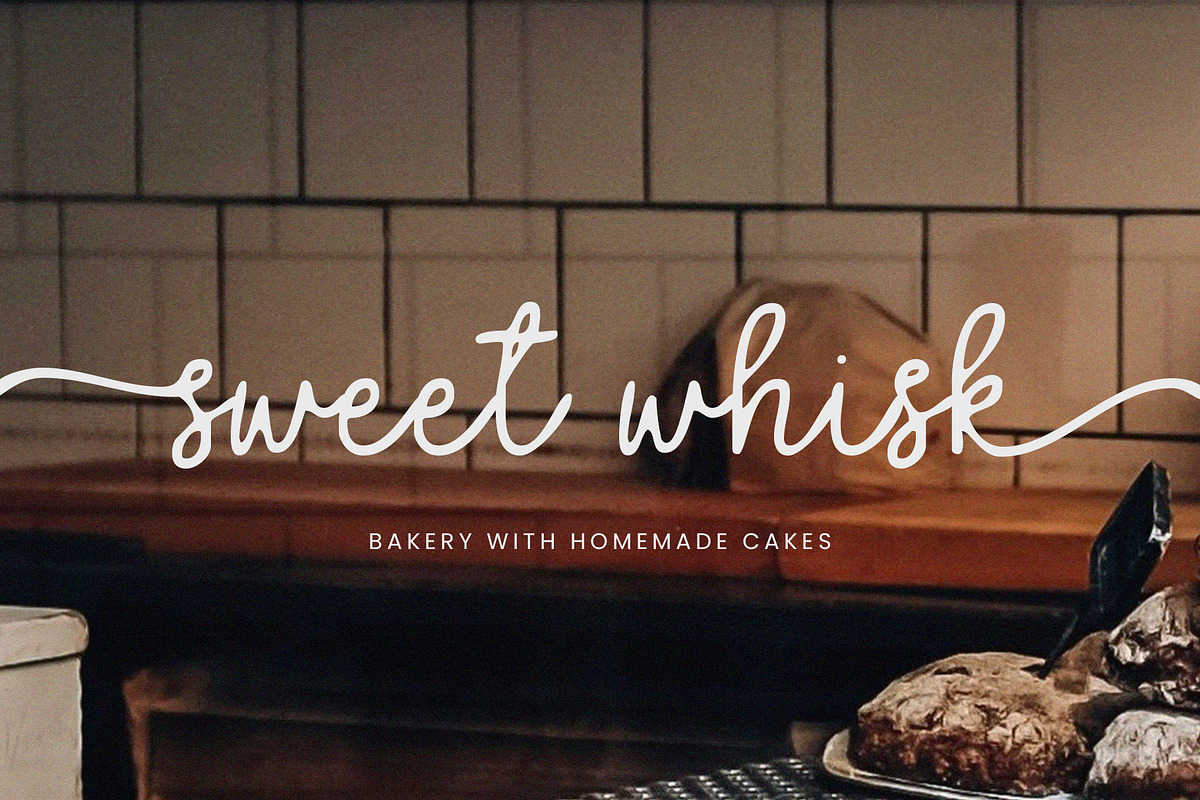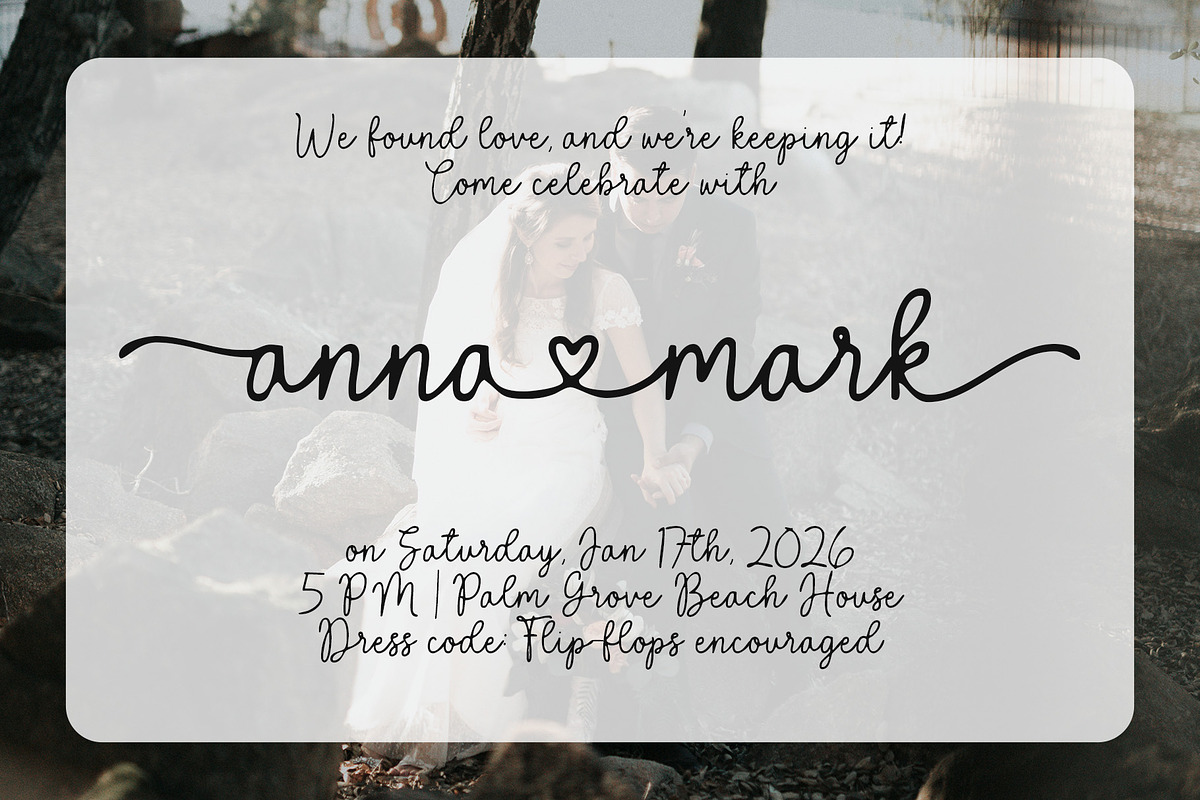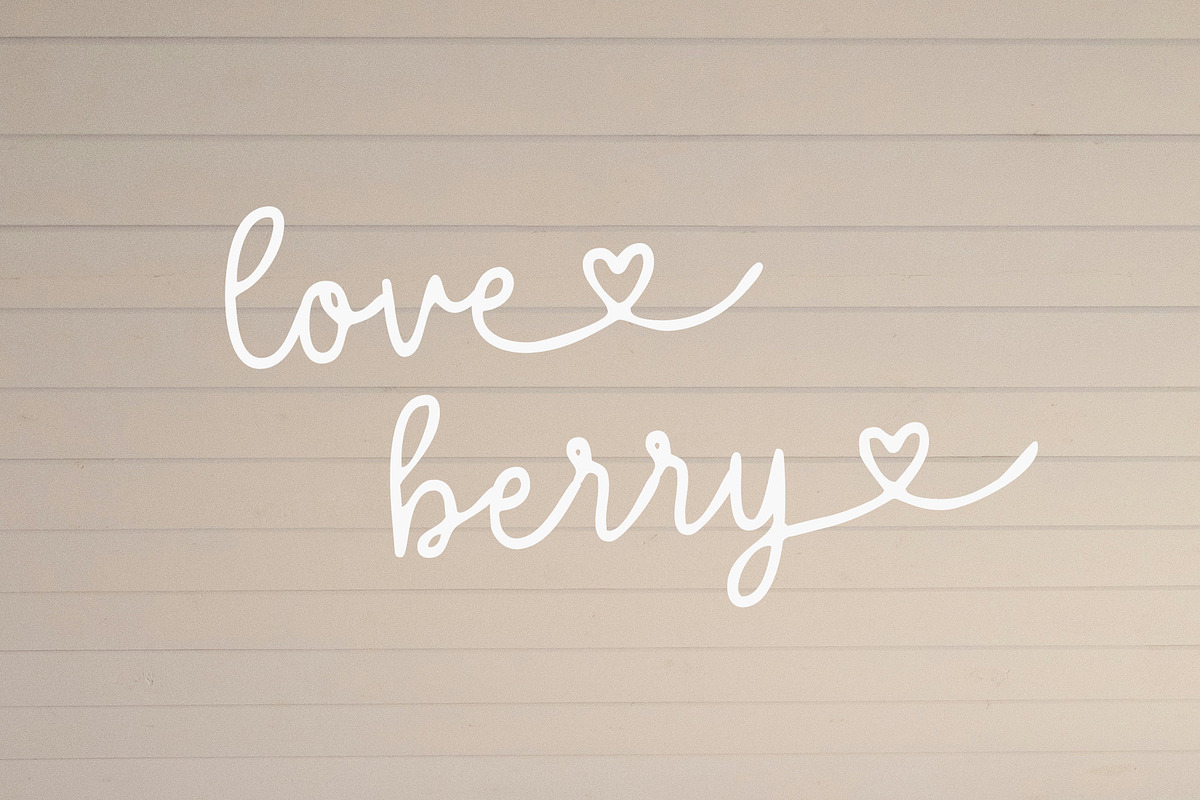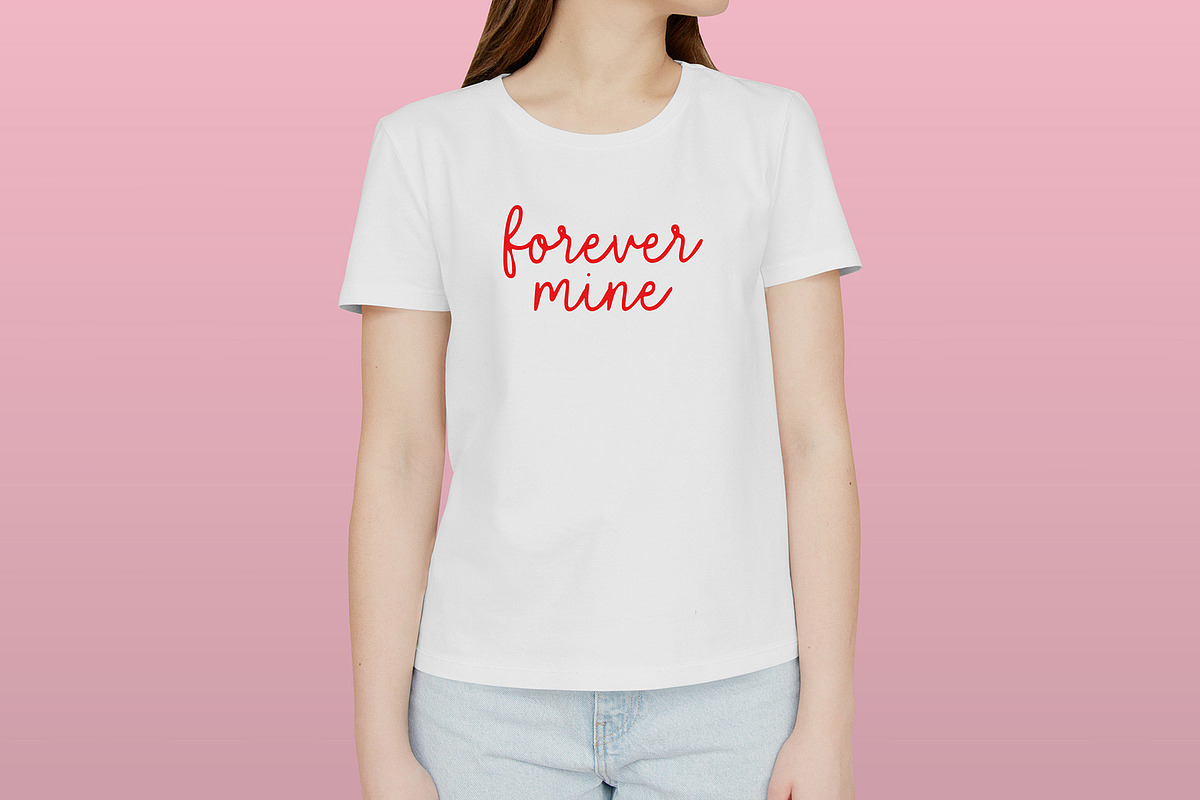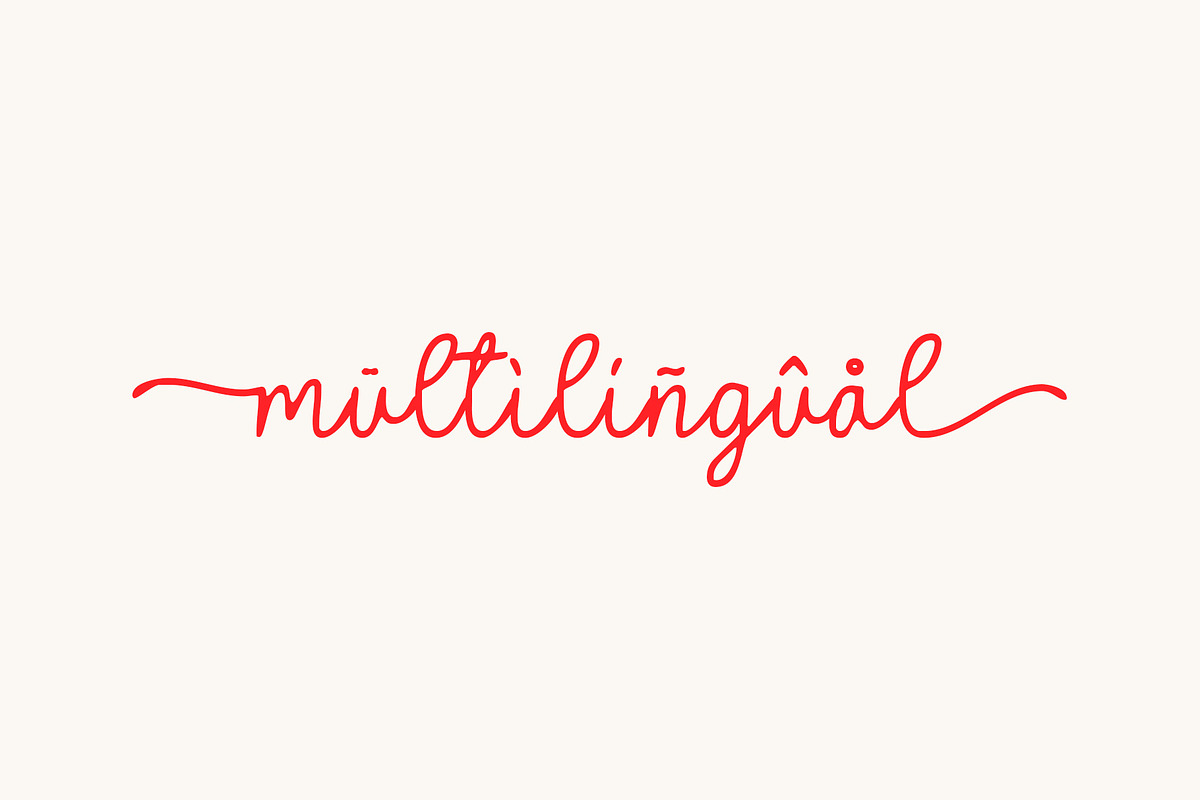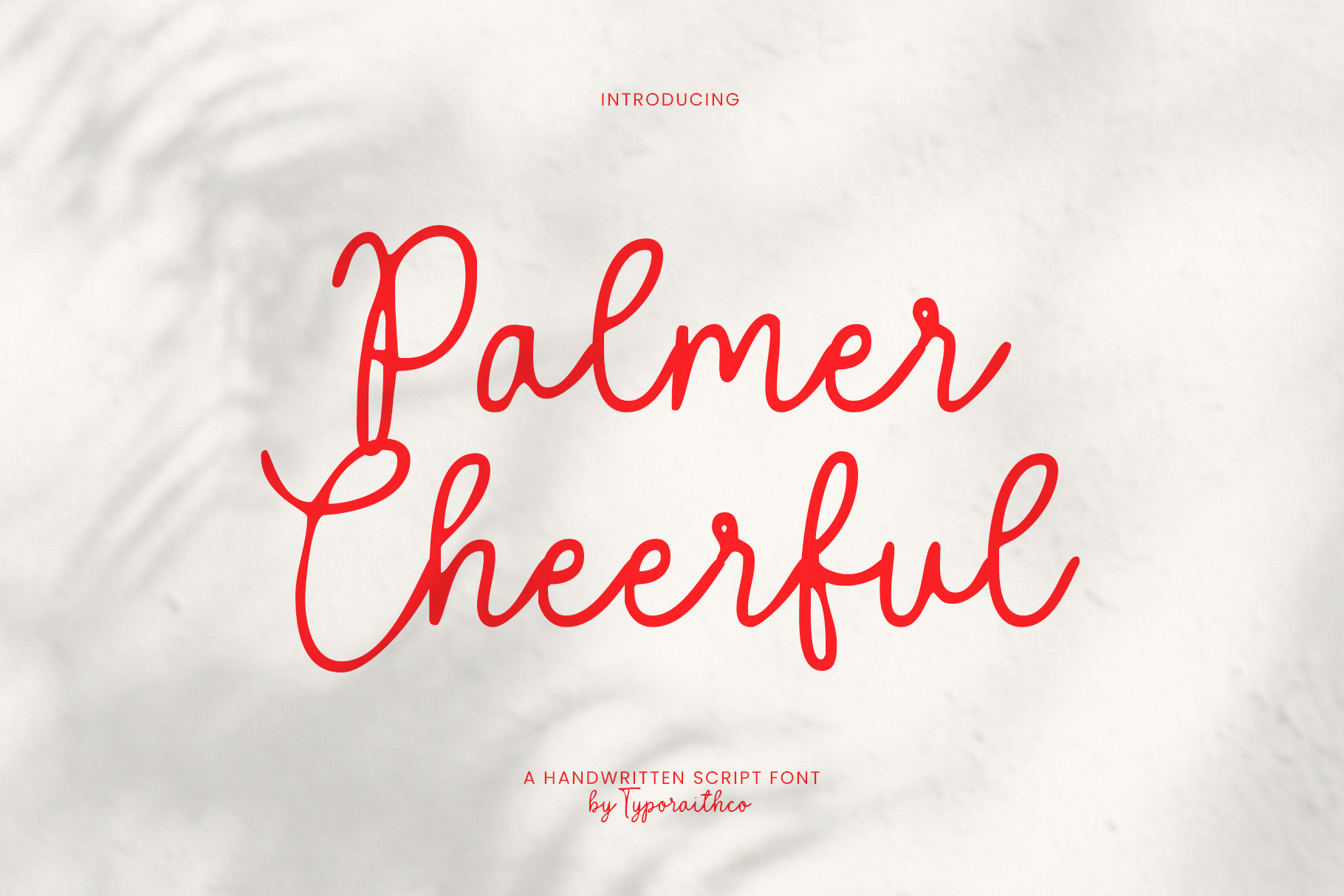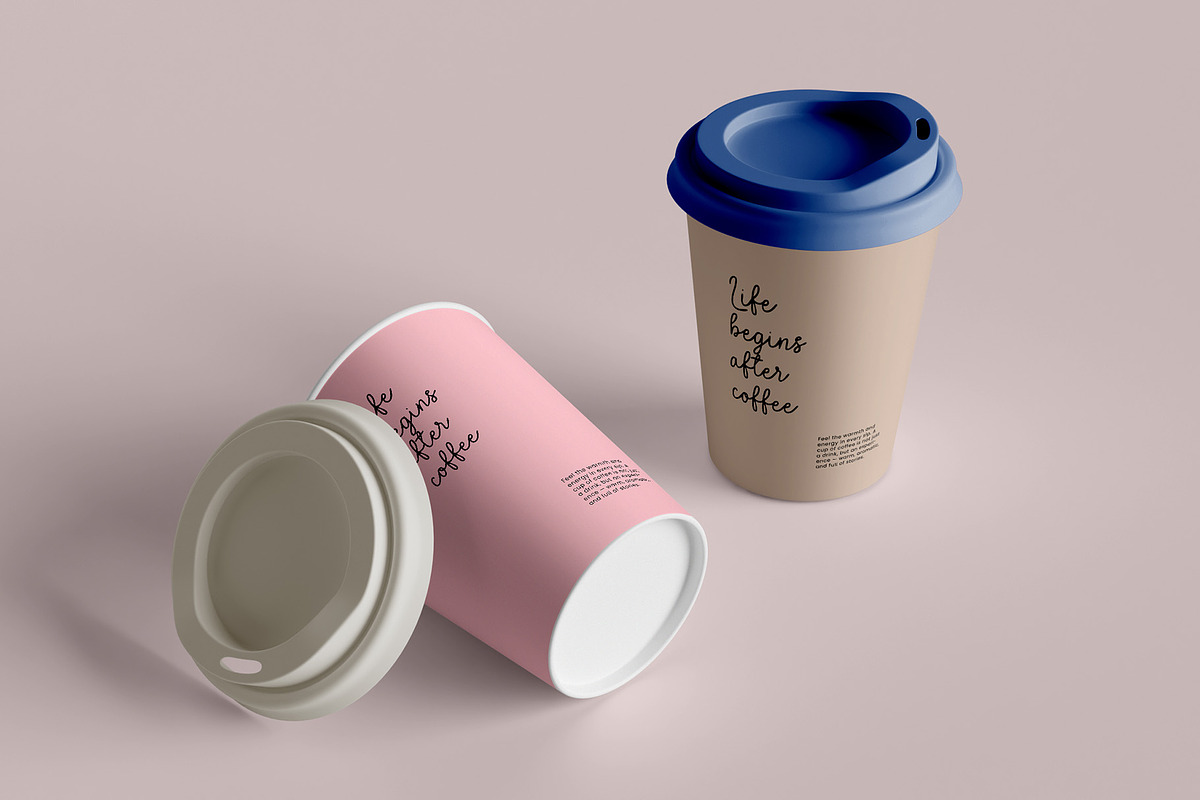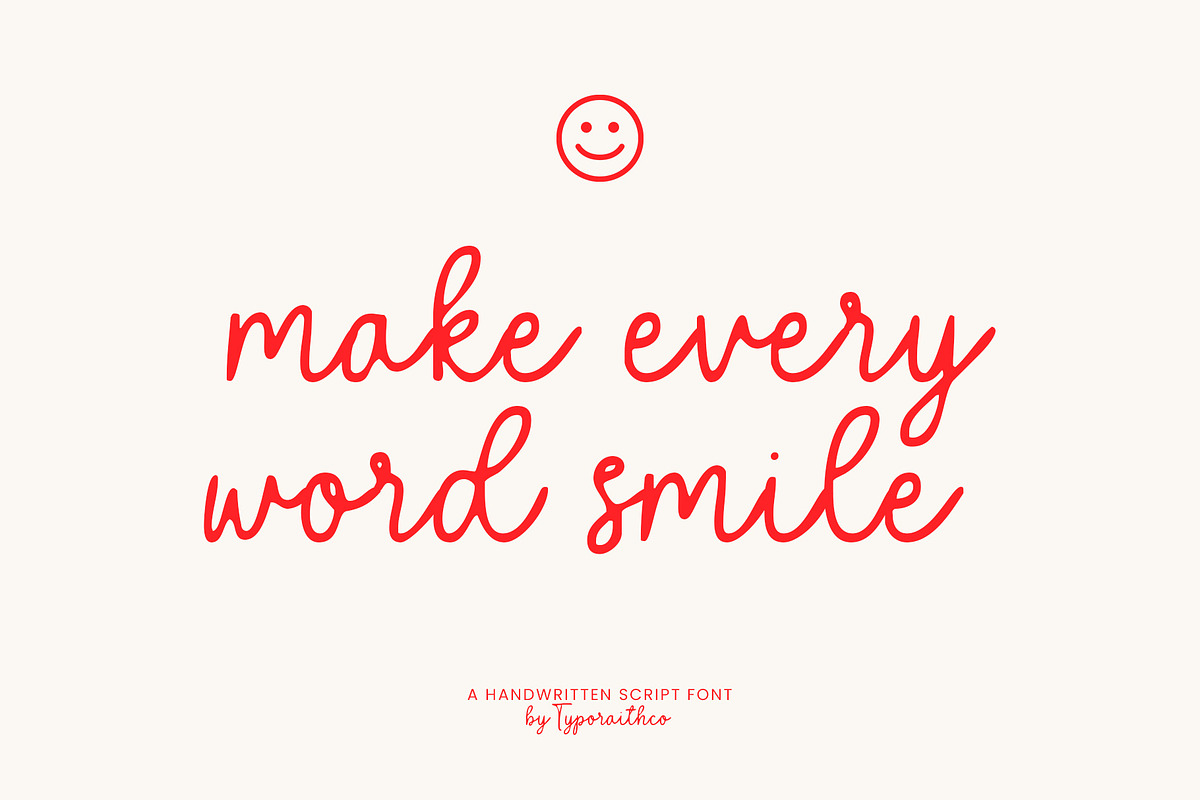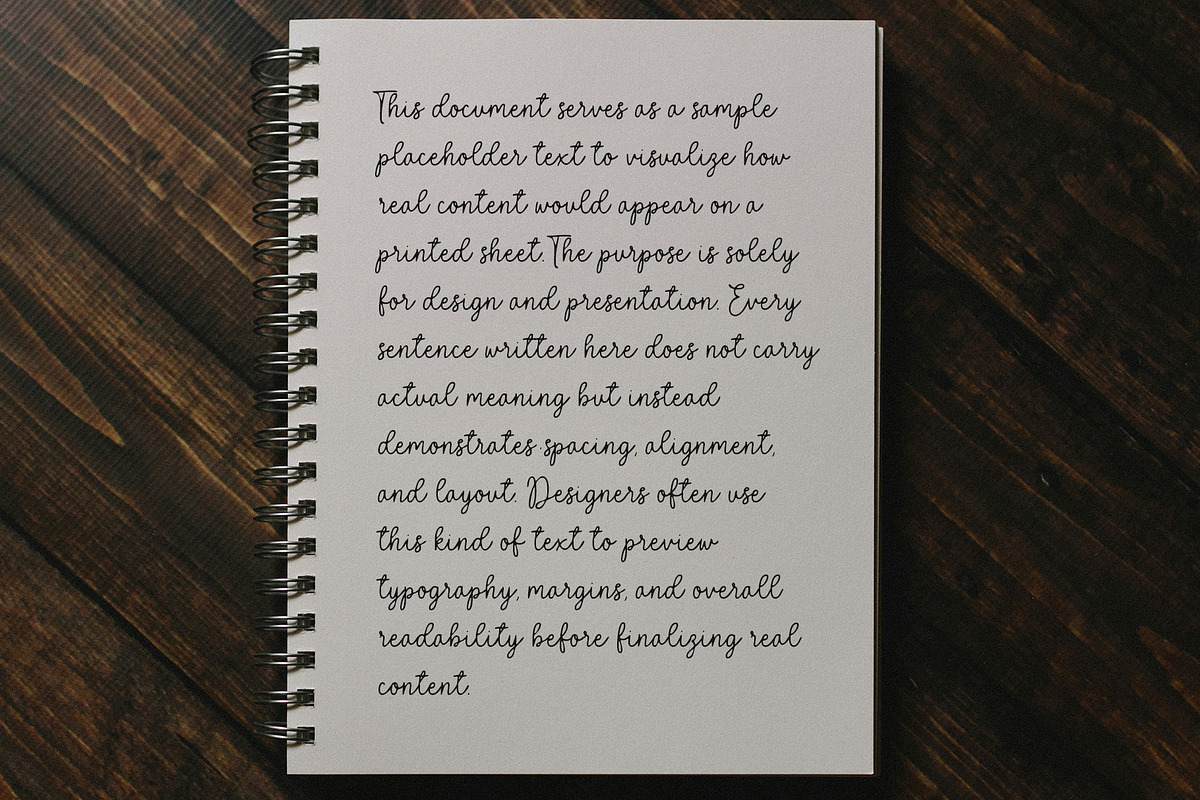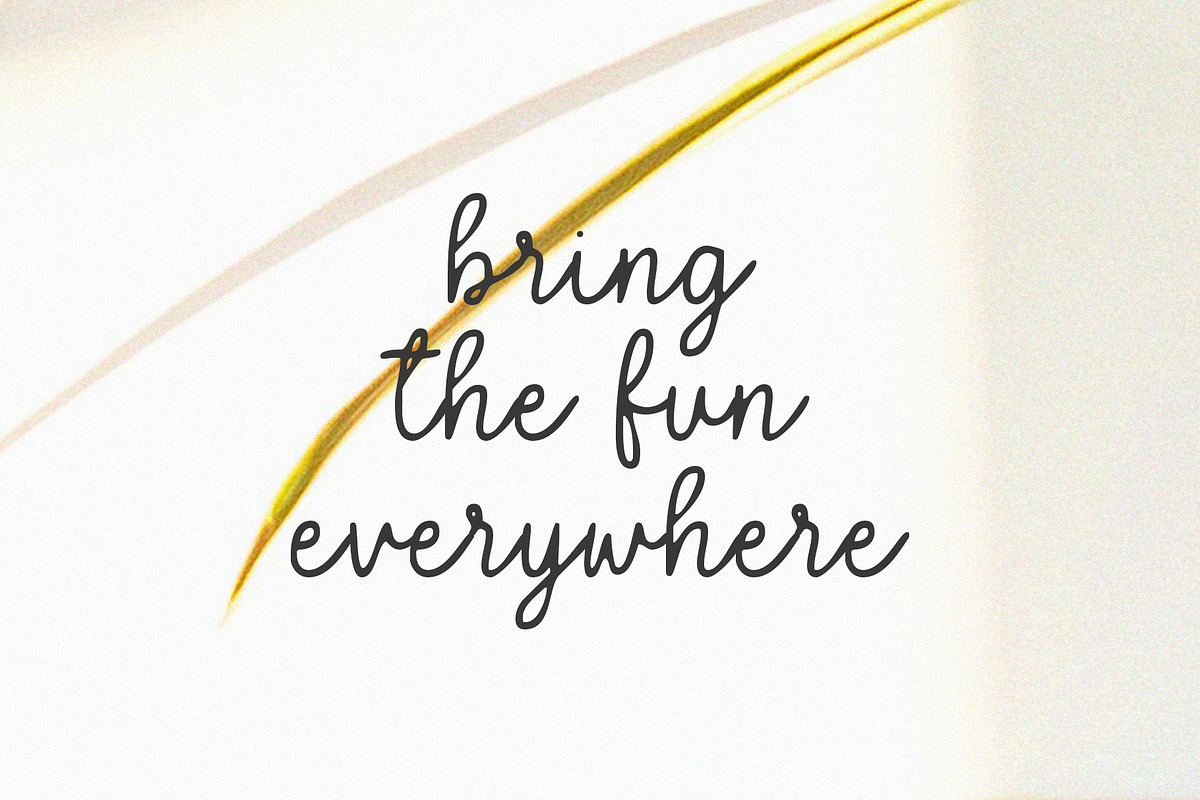
Palmer Cheerful | Script Font
Palmer Cheerful is a sweet and joyful handwritten script font that brings warmth and personality to your designs. With smooth letterforms and a playful touch, this font is perfect for adding a friendly and personal vibe. Use it for branding, wedding invitations, quotes, packaging, greeting cards, logos, social media posts, and more creative projects.
Designed to be both legible and unique, Palmer Cheerful makes your text look lively, charming, and effortlessly stylish.
Natural and elegant handwritten style
Perfect for both modern and classic designs
Alternate/ Ligature